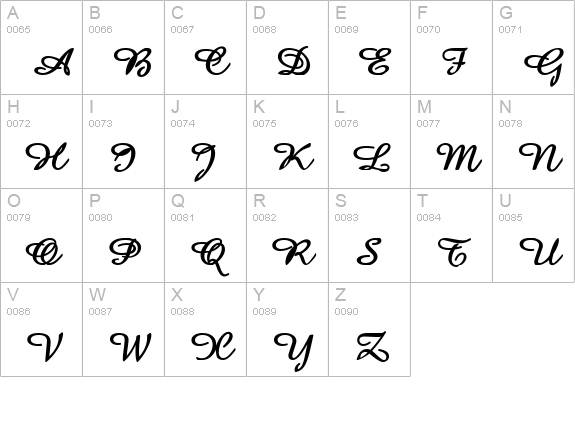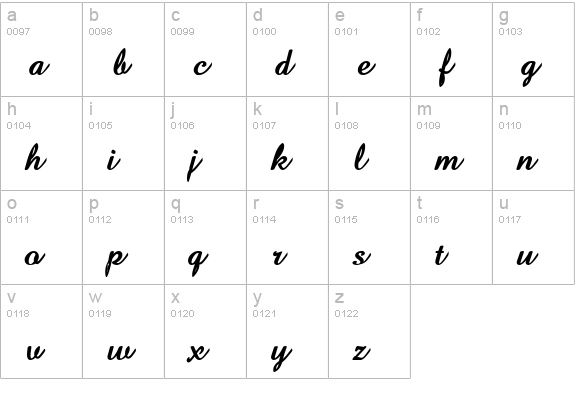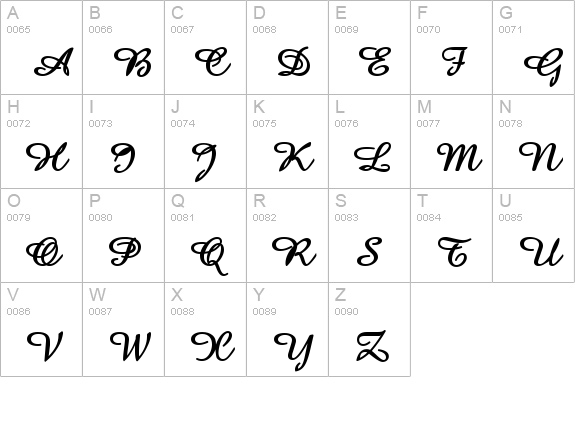
Amaze Bold Font Details
Amaze Bold is a strong, high-contrast variant in the Amaze typeface family \xE2\x80\x94 well suited to headlines, attention-grabbing titles, and strong calls-to-action.
Amaze Bold font is a stunning and eye-catching typeface that exudes confidence and modernity. Its bold and striking design makes it perfect for headlines, titles, posters, and other attention-grabbing designs. The sleek lines and sharp edges of this font give it a contemporary and stylish look that is sure to make your projects stand out. And the best part? Amaze Bold font is completely free to download at FontsMarket.com! Whether you're a designer looking to add a touch of boldness to your creations or a business owner in need of a powerful branding tool, this font is the perfect choice. Don't miss out on the opportunity to enhance your designs with the striking and versatile Amaze Bold font, available for free download now.